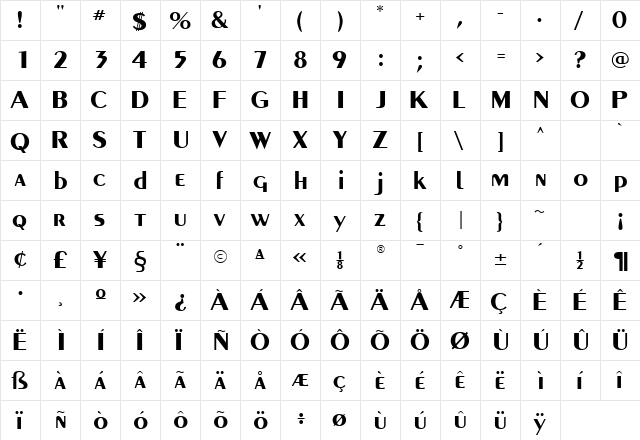
PaqueteSSK Bold
Design Context for PaqueteSSK Typeface
PaqueteSSK takes a measured approach to typography — its balanced proportions and neutral character make it a reliable workhorse for both digital and print work. Its bold stroke weight gives it real presence on the page.